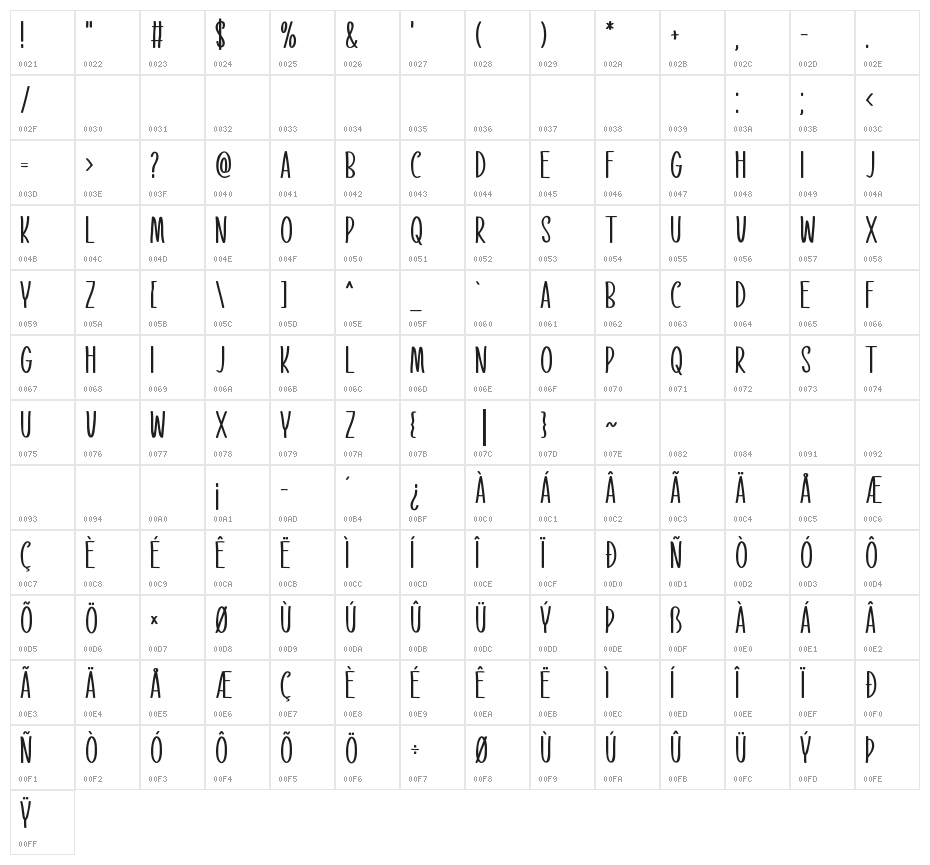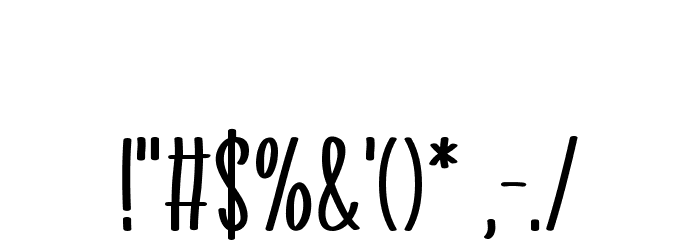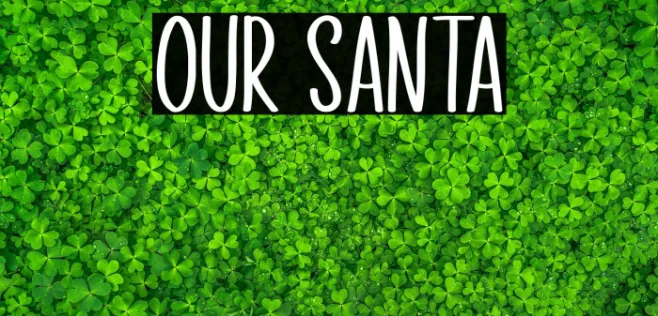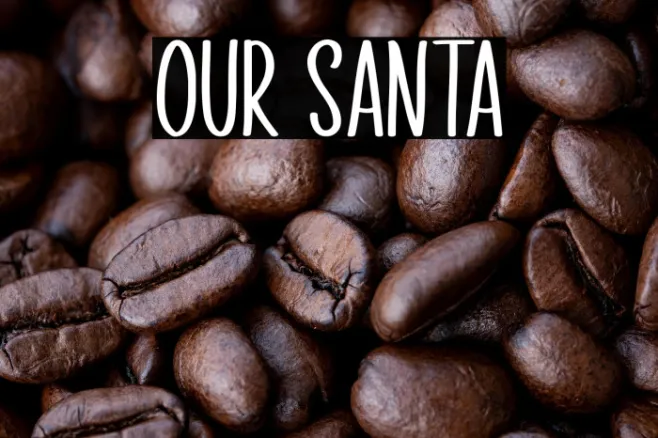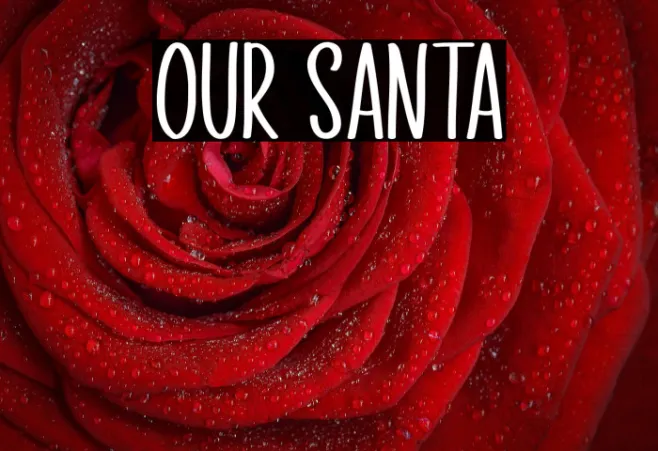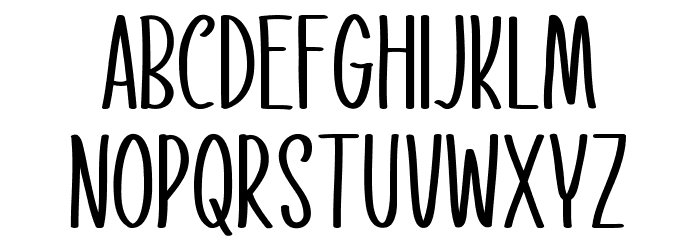
Our Santa Font
Our Santa Description
This font features a playful and informal style, characterized by its handwritten appearance. The letters are slightly elongated with a consistent stroke width, giving it a casual and friendly look. The uppercase and lowercase letters maintain a uniform height, enhancing readability while adding a touch of whimsy. The characters are well-spaced, ensuring clarity and legibility. The font includes a full set of uppercase and lowercase letters, numbers, and a variety of special characters, making it versatile for various design needs. Its unique style makes it suitable for projects that require a personal and approachable feel.
| Proposed Projects | Ideal for greeting cards, children's books, playful branding, and social media graphics. |